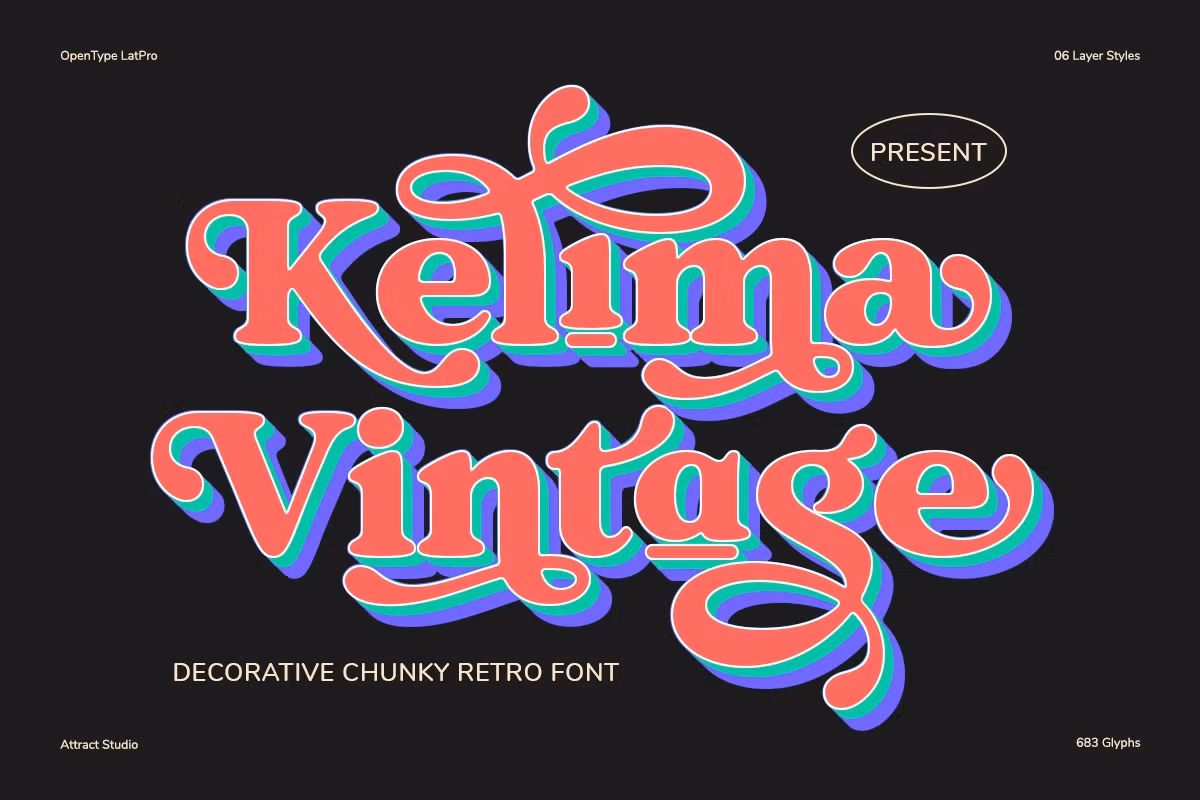
Kelima Vintage Font Free Download is a nostalgic and timeless typeface inspired by classic typography. With its elegant curves and vintage aesthetic, Kelima brings a sophisticated and retro flair to your designs. Ideal for branding, logos, packaging, posters, and retro-themed projects, Kelima adds an authentic vintage touch to any creation.
Its versatile style allows it to shine in both print and digital formats. Kelima includes uppercase and lowercase letters, punctuation, multilingual support, and works seamlessly on both Mac and Windows systems.